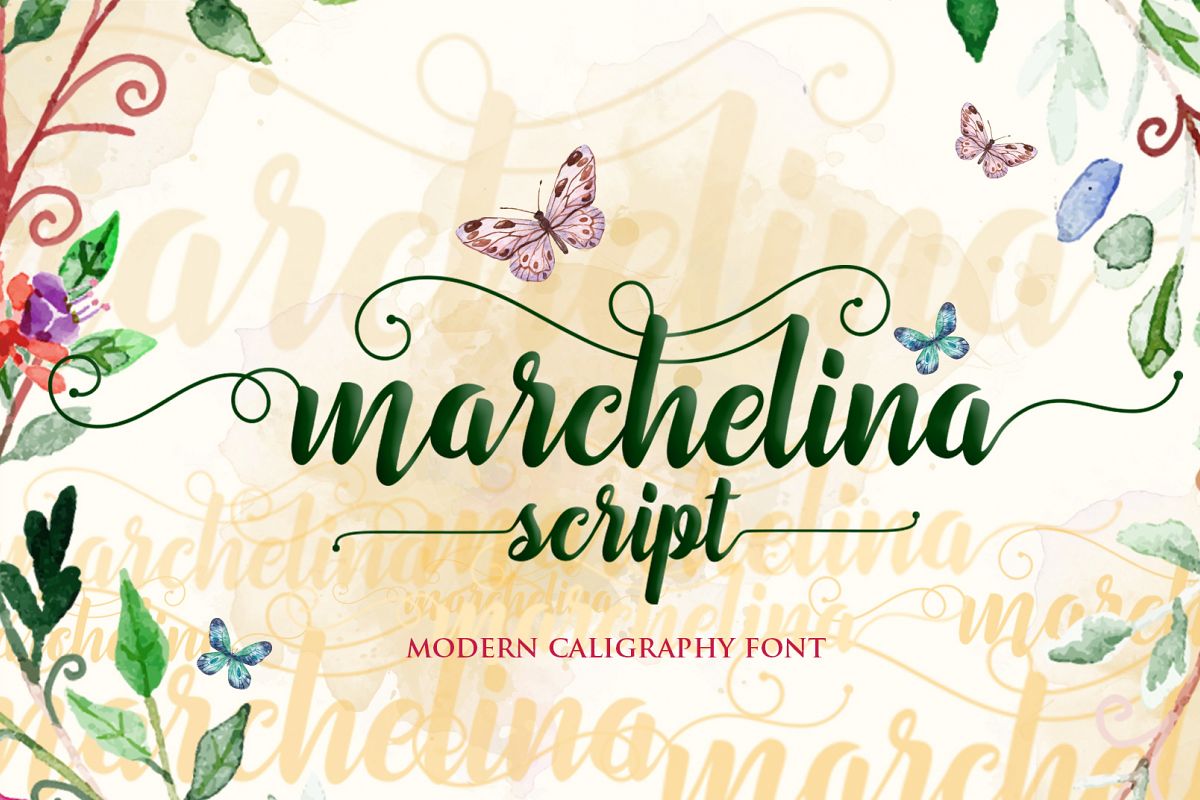
Marchelina Script
Marchelina Script Font, a handmade font awesome, new fresh & modern script with a calligraphy style. Can used for anything from promotional material and handwritten quotes, to product packaging, labels,logo newsletters, posters, merchandise and branding projects.Marchelina Script Font supports and includes:Standard Opentype
• Contextual alternates
• Stylistic alternate
• Swash and Punctuation